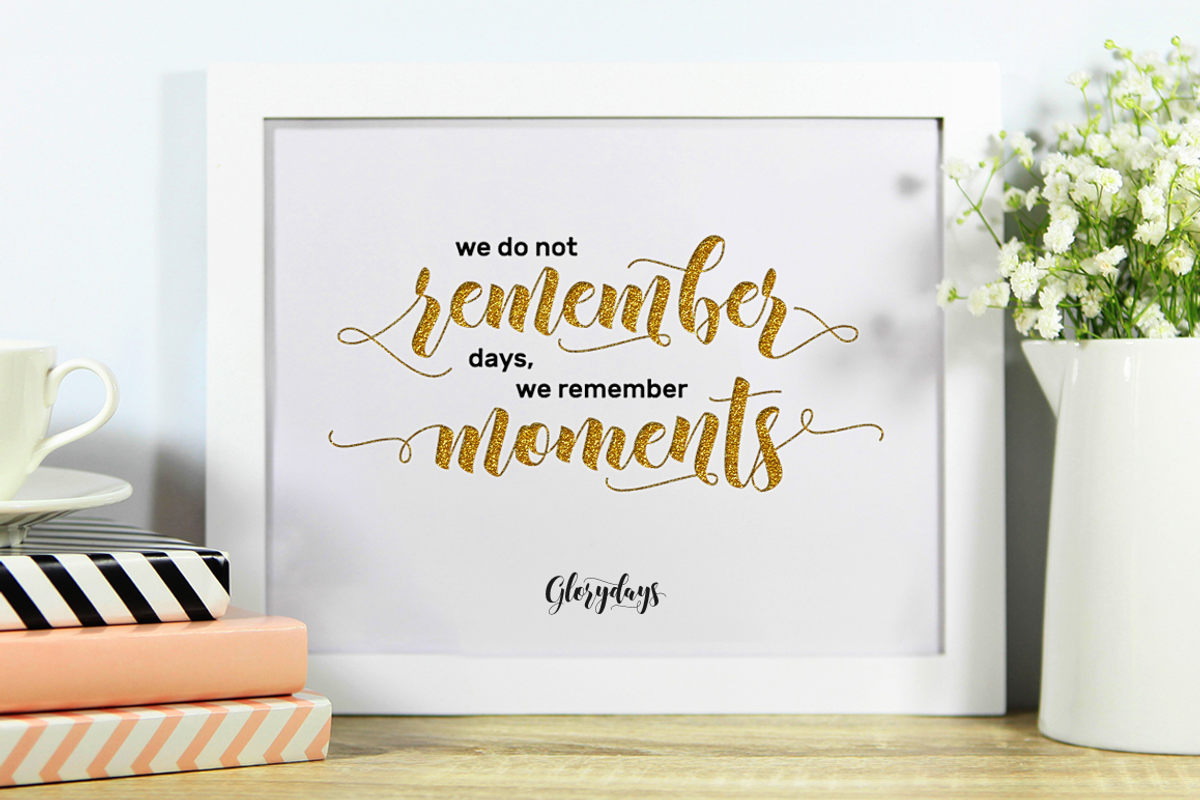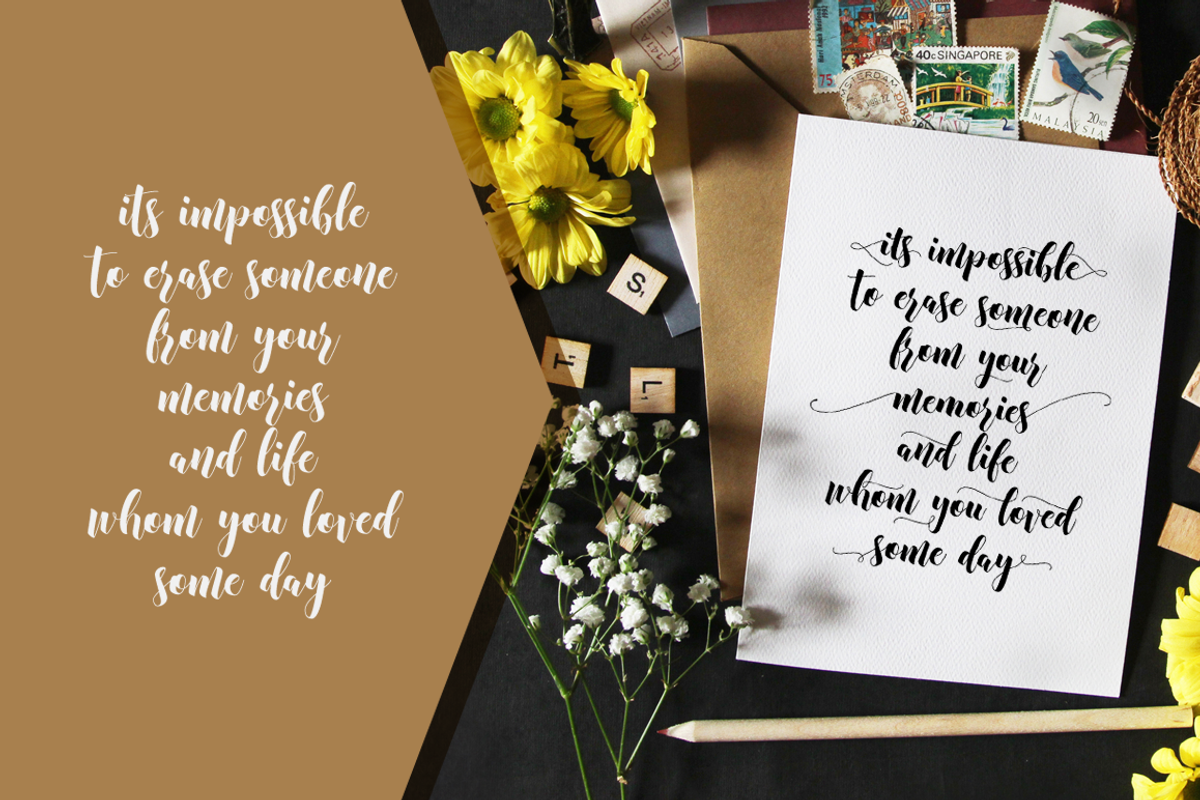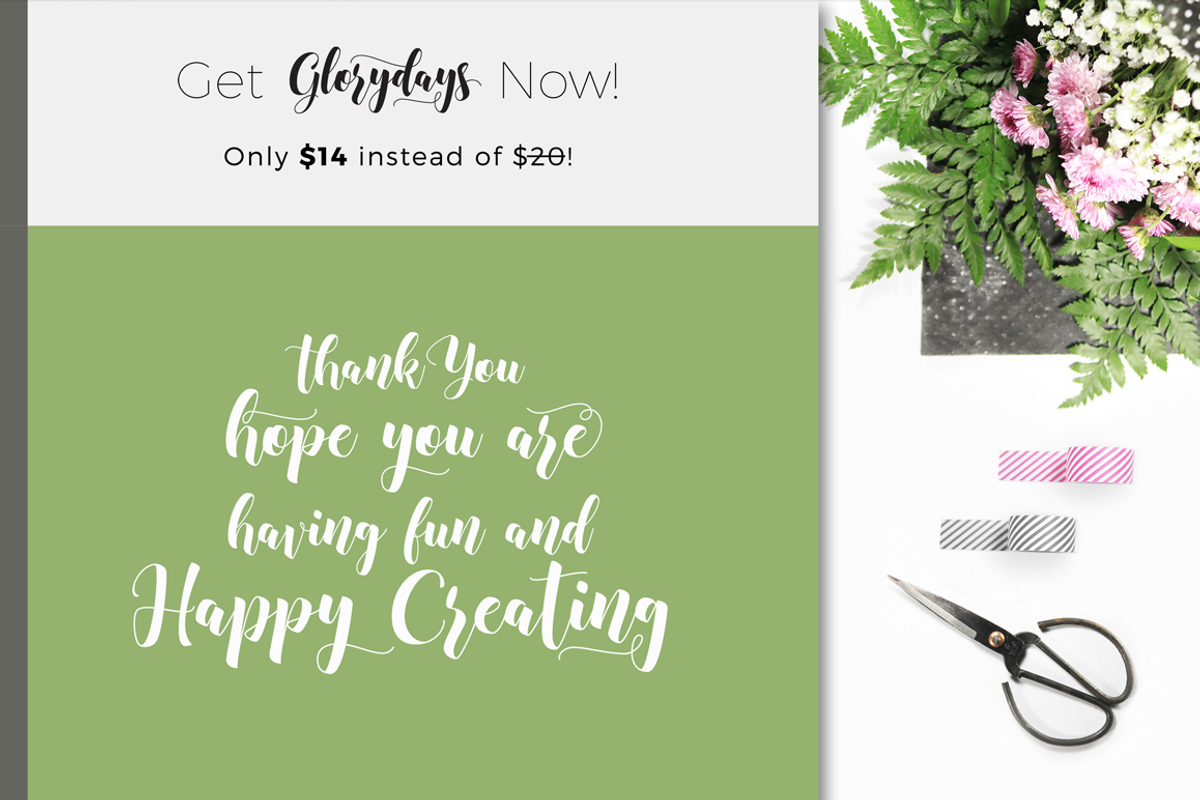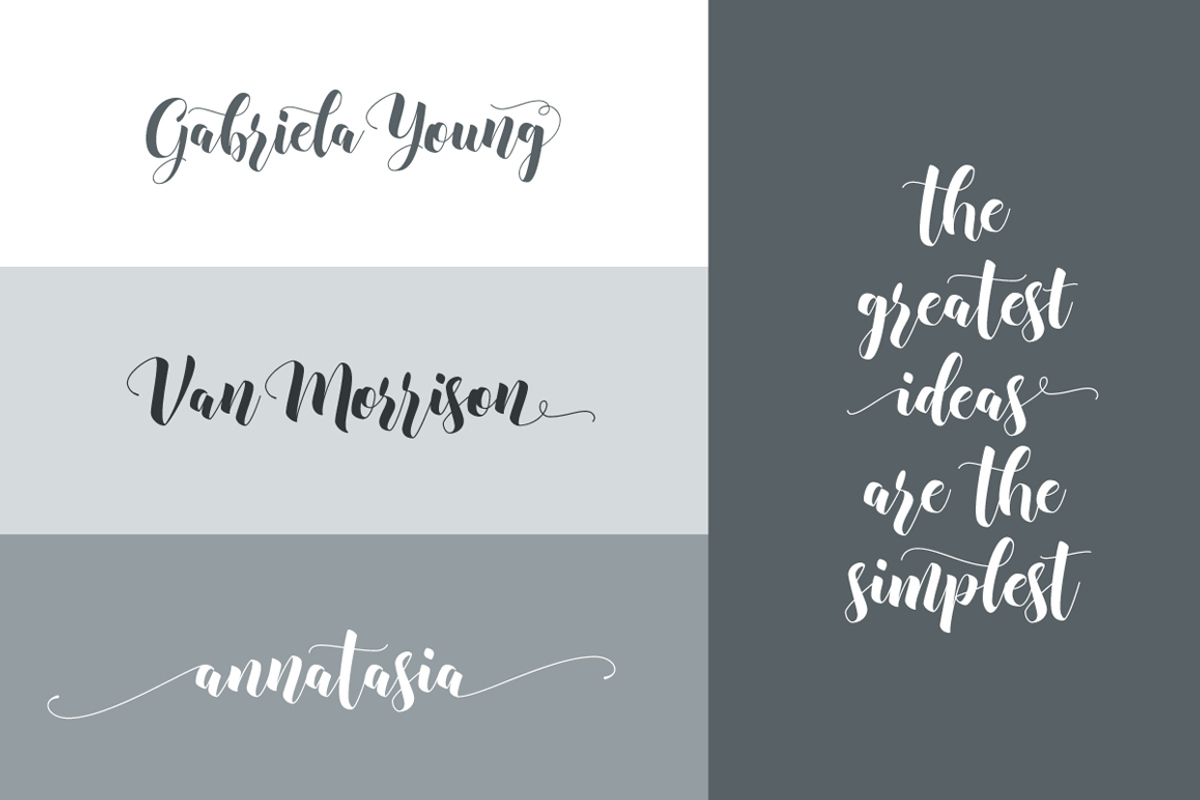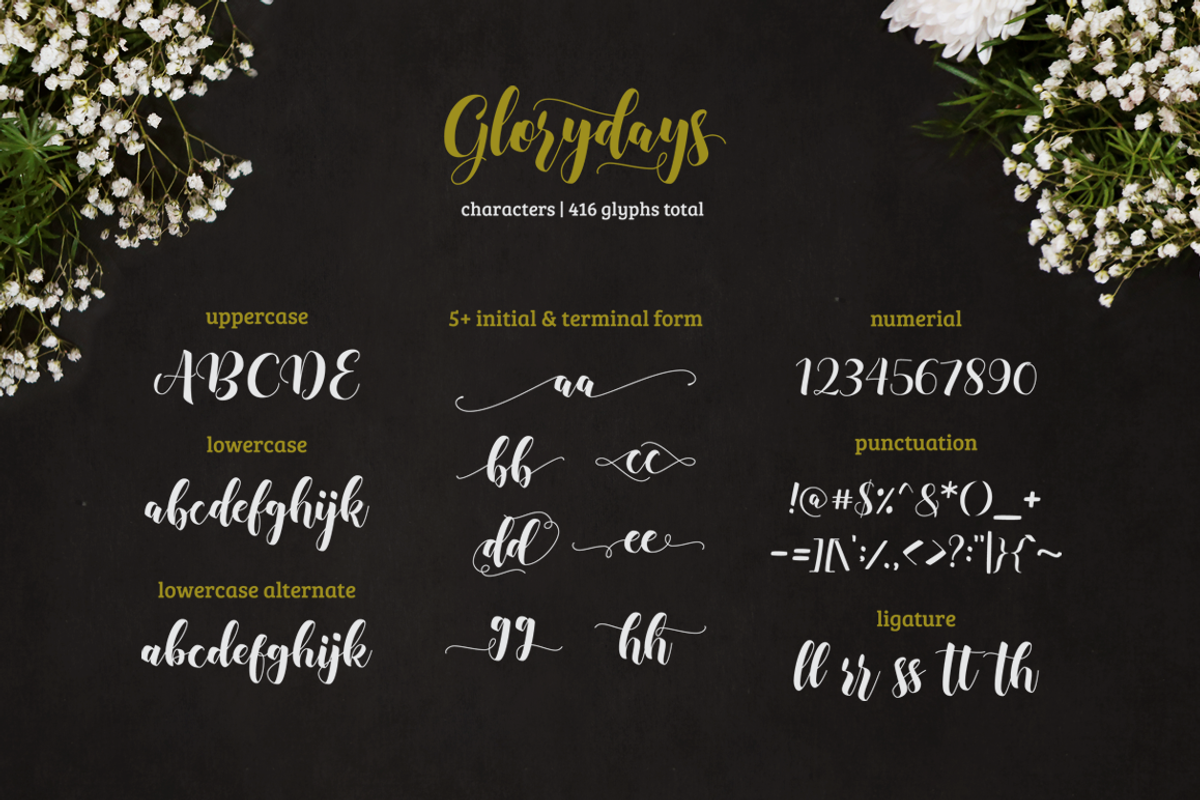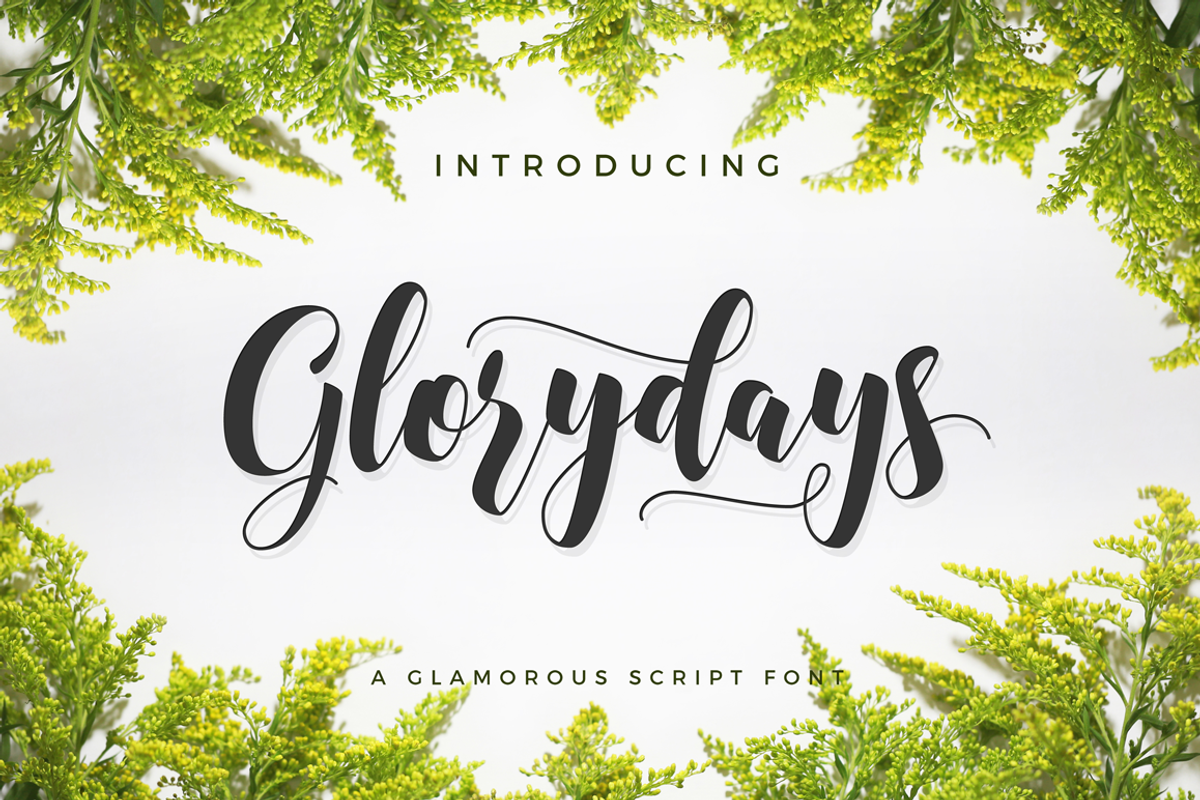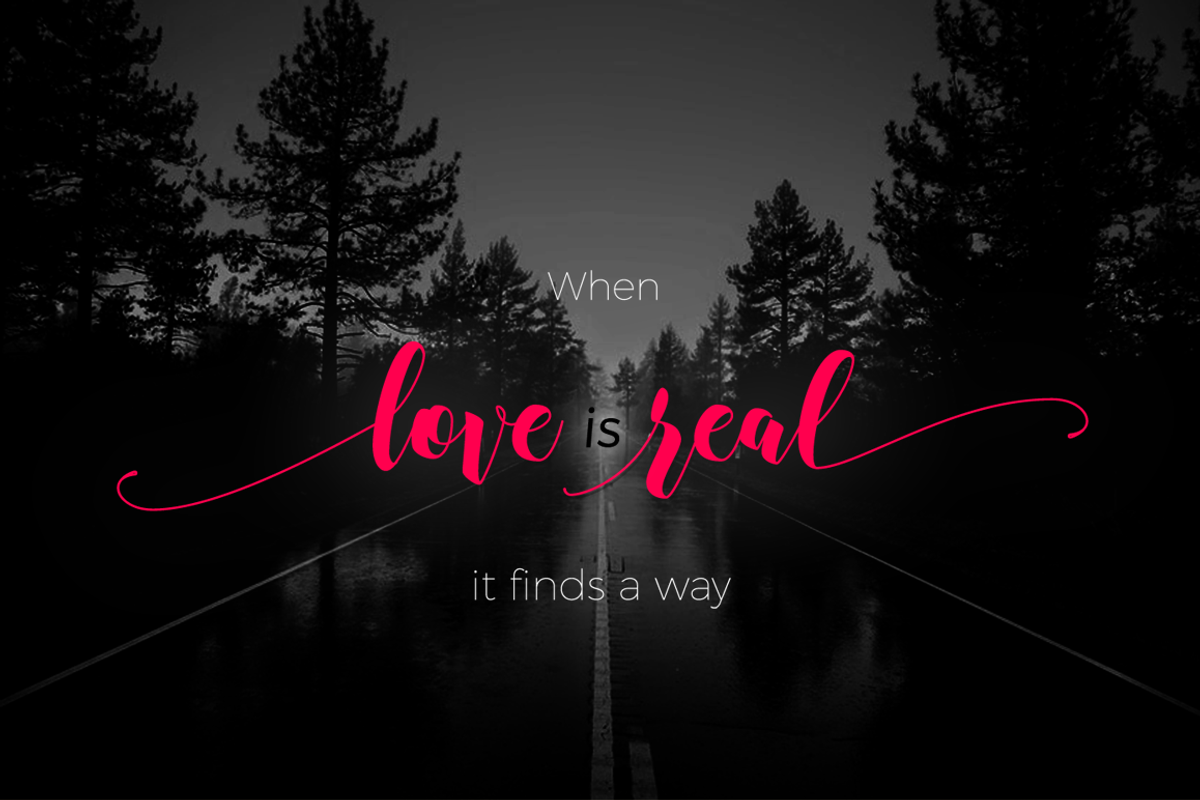
Glorydays Cursive Font
Glorydays Cursive Font by Typia Nesia is a font selected for branding, posters, packaging, typography.
- Glorydays typeface have 549 glyphs, comes with upper and lowercase Standard Characters, Punctuation, Numerals.
- Includes a range of multilingual characters.
- And other Glyphs variation of the OpenType features such as Standard Ligature, Stylistic Alternate and 12 Stylistic Set (ss01 - ss12).
- Includes a range of multilingual characters.
Why Glorydays Cursive Font is worth a look
Glorydays Cursive Font by Typia Nesia fits naturally into Branding, posters, packaging, typography.